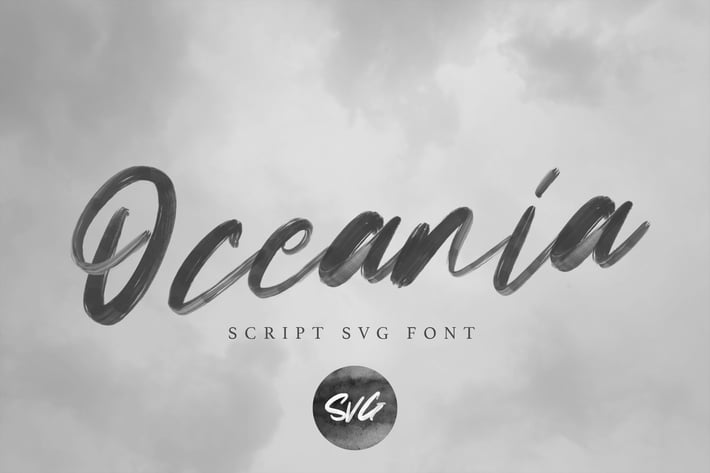
Oceania | SVG Script Font
Oceania | SVG Script Font with a calligraphy style, So beautiful on invitation like greeting cards, branding materials, business cards, quotes, posters, and more!